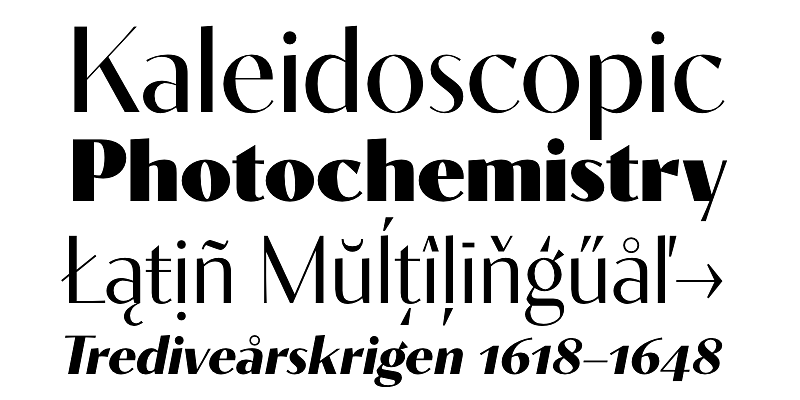
Contralto Font Free Download
Contralto Font Free Download is a high-contrast serif typeface that combines classical elegance with a modern edge. With its tall vertical proportions, dramatic thick-to-thin transitions, and refined curves, Contralto is ideal for editorial layouts, fashion branding, luxury packaging, and sophisticated logo designs.
Inspired by the visual rhythm of musical notation and high fashion aesthetics, Contralto brings a sense of poise and authority to any project. It features uppercase and lowercase letters, numerals, punctuation, and multilingual support—ensuring versatility for international design work.
Whether you're designing a magazine cover, an upscale brand identity, or a timeless wedding invitation, Contralto Font Free Download adds an unmistakable sense of style. Feel free to explore its elegant structure in your personal or test projects. For professional or commercial use, please make sure to purchase the correct license. Add this bold and graceful serif to your font collection and elevate your typography with confidence.